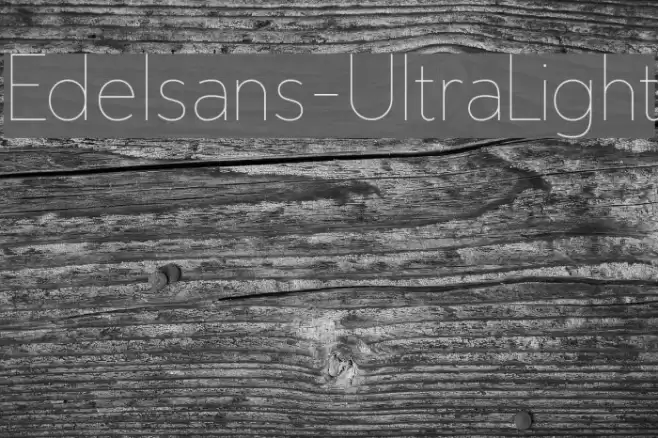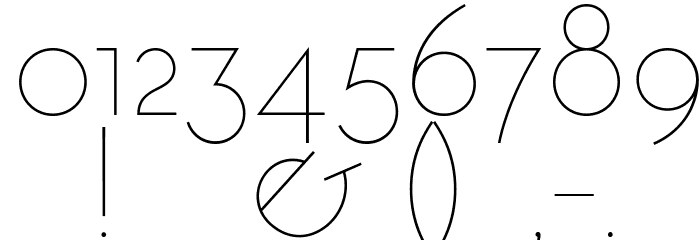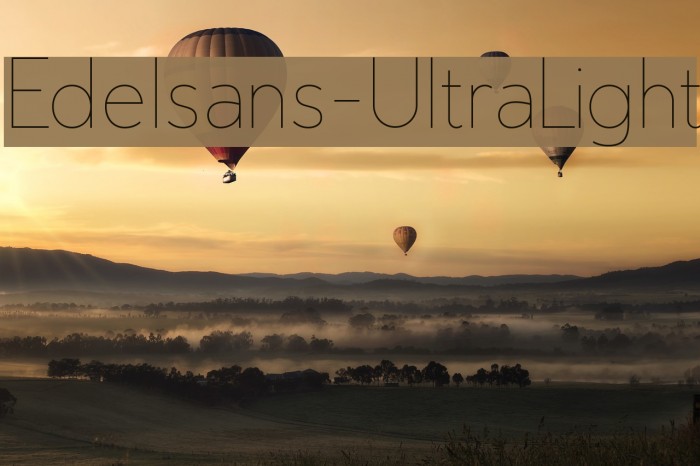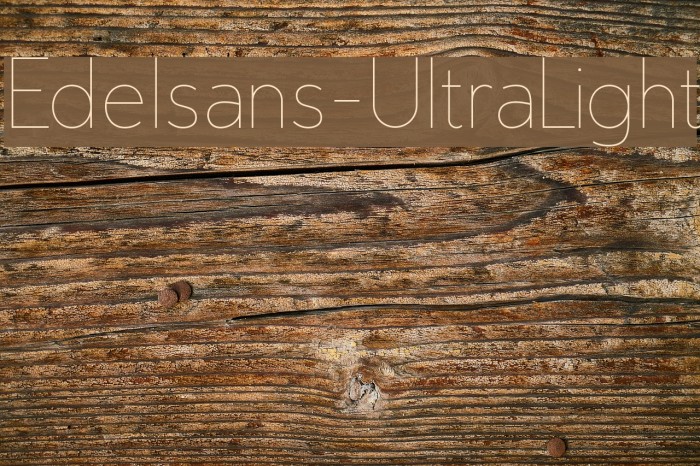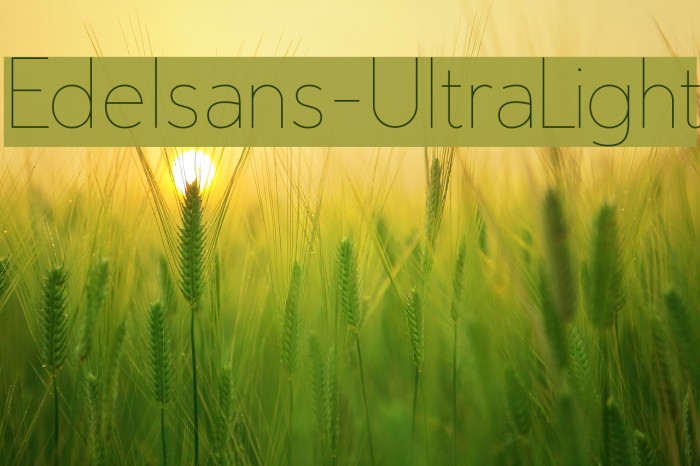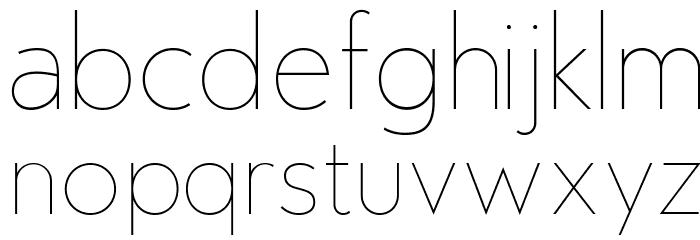
Edelsans-UltraLight Font
Edelsans-UltraLight Description
This font features an ultra-lightweight design with a clean, minimalist aesthetic. The characters are elegantly thin, with a consistent stroke width that gives a modern and sophisticated appearance. The uppercase letters are tall and slender, while the lowercase letters maintain a harmonious balance with slightly rounded edges. The numerals are distinct and easy to read, complementing the overall sleek style. Special characters are thoughtfully designed, maintaining the font's uniformity and elegance. This font is ideal for projects that require a refined and contemporary look.
An ultra-light, minimalist font with a modern and sophisticated design from Uncategorized fonts.
- Proposed Projects: Ideal for branding, editorial design, luxury product packaging, and minimalist web design.